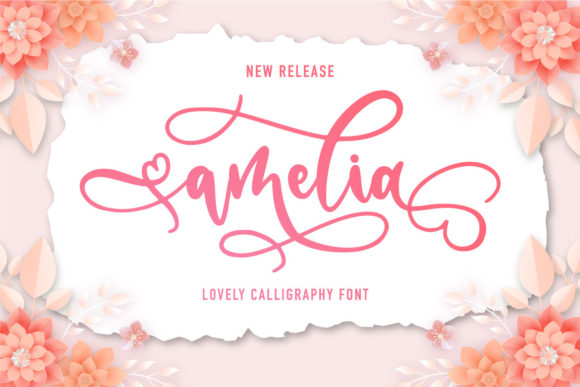
The Quest for the Perfect Handwritten Font: Discovering Amelia
I still remember the design project that led me to Amelia Font. I was working on a wedding invitation suite, and my client had a very specific vision: elegant, handwritten, and with a touch of sophistication. I scoured font libraries, but nothing seemed quite right. That was until I stumbled upon Amelia. It was love at first sight! 💕
An Honest Review of Amelia Font
So, what makes Amelia so special? Let’s dive into the good stuff and a few quirks I’ve discovered.
• ✨ Elegant and stylish: Amelia brings a level of sophistication to any design.
• ✅ PUA encoded: Easy access to glyphs and swashes, making it a joy to work with.
• 💕 Perfect for wedding and event designs: Invitations, thank you cards, and more – Amelia shines in these contexts.
• 🎨 Versatile: Logos, business cards, quotes, and greeting cards all benefit from Amelia’s charm.
While Amelia is a stunning font, there are a few things to keep in mind:
• ⚠️ Learning curve: With so many glyphs and swashes available, it can take some time to get familiar with them all.
• 🤔 Not ideal for body text: Amelia is best used for headings or short paragraphs; it’s not designed for long-form reading.
Exploring Alternatives: Similar Fonts to Amelia
The Story Behind Amelia Font
While the origins of Amelia Font might not be well-documented, it’s clear that the designer aimed to create a font that exudes elegance and charm. Imagine a sophisticated, handwritten script that feels both modern and timeless – that’s Amelia.
Font Name Amelia Font
Author Fallengraphic
Q: Is Amelia suitable for body text?
A: No, Amelia is best used for headings, titles, and short paragraphs. Its elegant style isn’t suited for long-form reading.
Q: Does Amelia include swashes and glyphs?
A: Yes, Amelia is PUA encoded, providing easy access to a range of swashes and glyphs to enhance your designs.